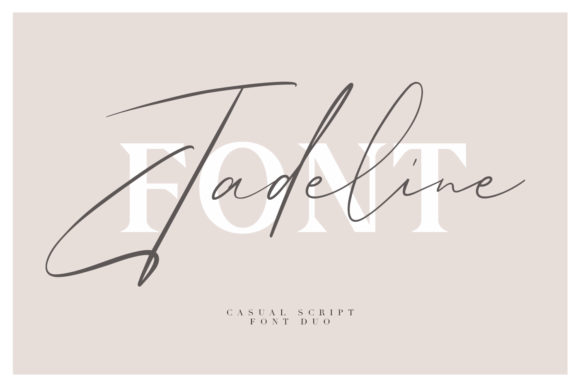
Introducing Jadeline Script Font, the exquisite handwritten font duo that will ignite your creativity and elevate your designs to breathtaking heights. This masterful creation by Maulana Creative seamlessly blends elegance, boldness, and a touch of ethereal lightness, making it the perfect choice for a wide array of design projects.
Immerse yourself in the world of Jadeline, where each stroke dances across the page with an enchanting grace. Its meticulously crafted characters exude a timeless charm, reminiscent of handwritten love letters and heartfelt journal entries. Jadeline's lighthearted spirit adds a touch of whimsy to your designs, ensuring they stand out from the crowd with an unforgettable allure.
Unleash the boundless possibilities of Jadeline and watch as your creative visions come to life. Its versatility knows no bounds, making it an indispensable tool for graphic designers, website developers, and anyone seeking to add a touch of sophistication to their written expressions. From captivating logos and website headers to alluring social media posts and heartfelt invitations, Jadeline transforms ordinary words into works of art.
With Jadeline Script Font, you hold the power to craft designs that resonate on an emotional level. Its enchanting curves and delicate flourishes evoke a sense of warmth, authenticity, and heartfelt connection. Whether you seek to convey the timeless elegance of a classic novel or the whimsical charm of a personal diary, Jadeline has the versatility to fulfill your every creative desire.
Beyond its aesthetic allure, Jadeline Script Font is meticulously designed to enhance readability and user experience. Its carefully spaced characters and consistent stroke width ensure effortless reading, even in smaller sizes. This makes Jadeline an excellent choice for body text, ensuring your message reaches your audience with clarity and impact.
Embrace the beauty of handwritten artistry with Jadeline Script Font. Its graceful curves and enchanting flourishes will effortlessly elevate your designs, adding a touch of timeless elegance and heartfelt charm to every project. Experience the magic of Jadeline today and let your creativity soar to new heights!